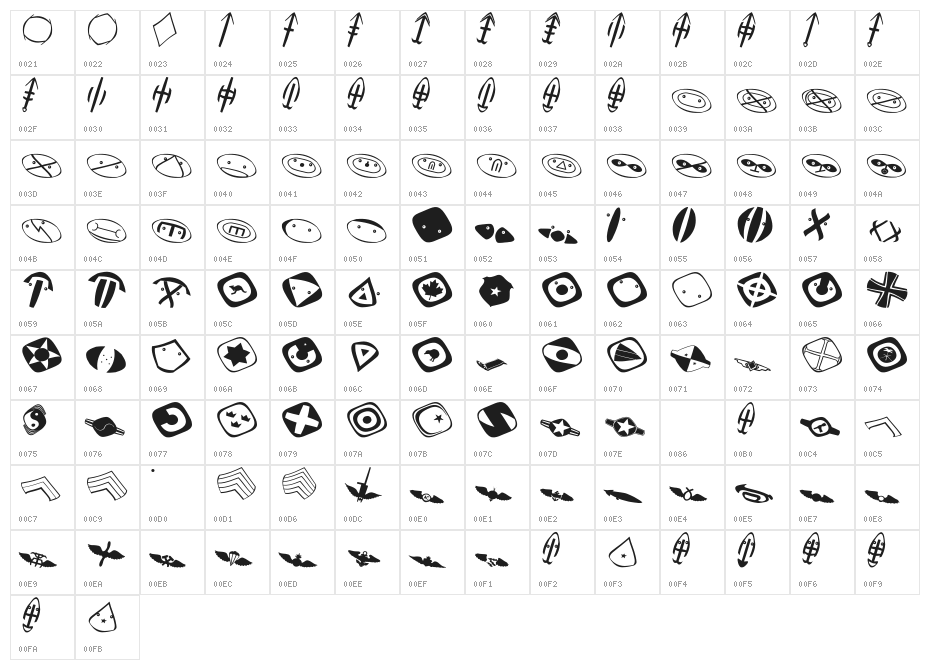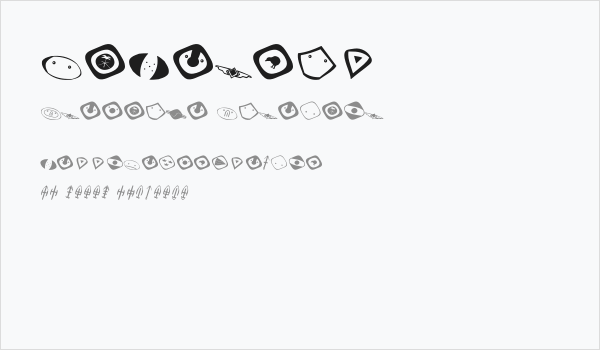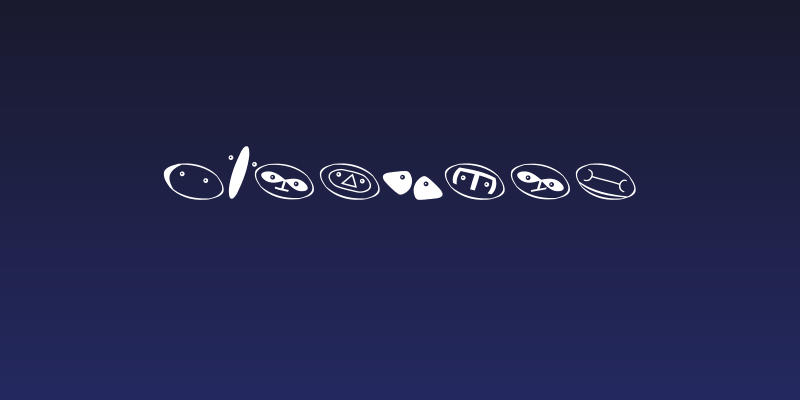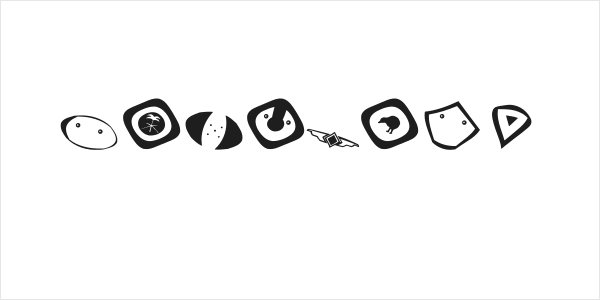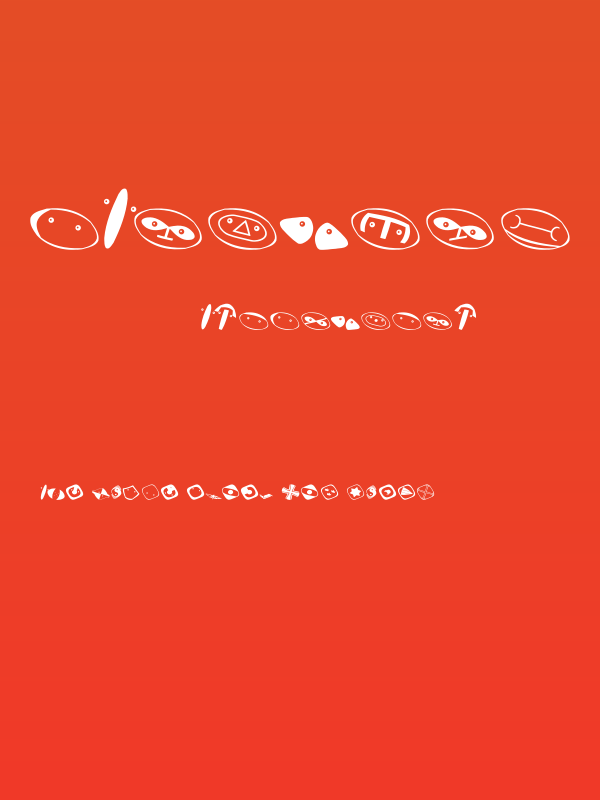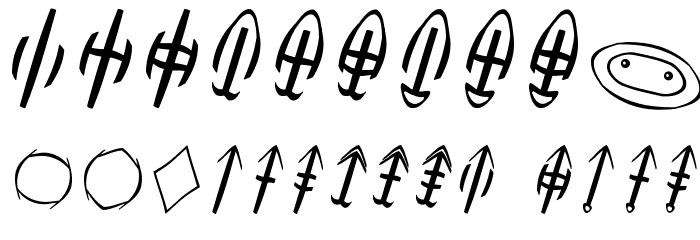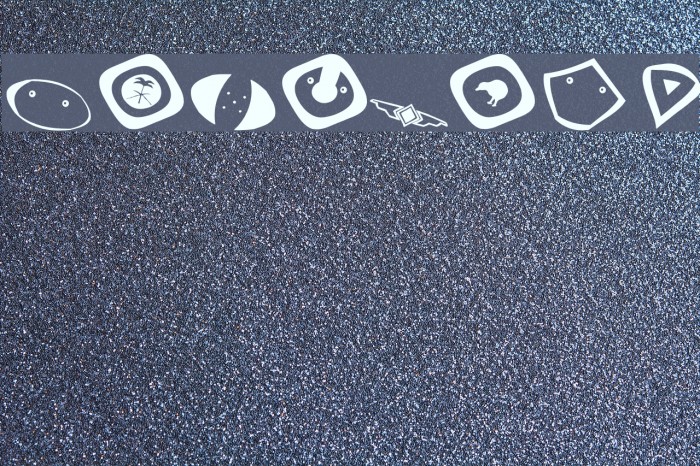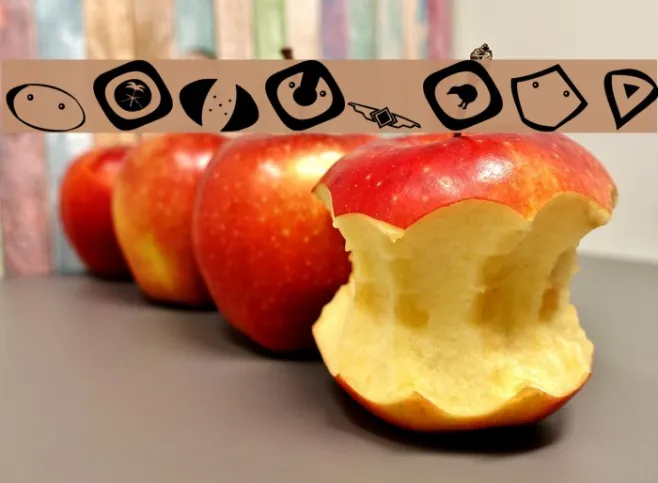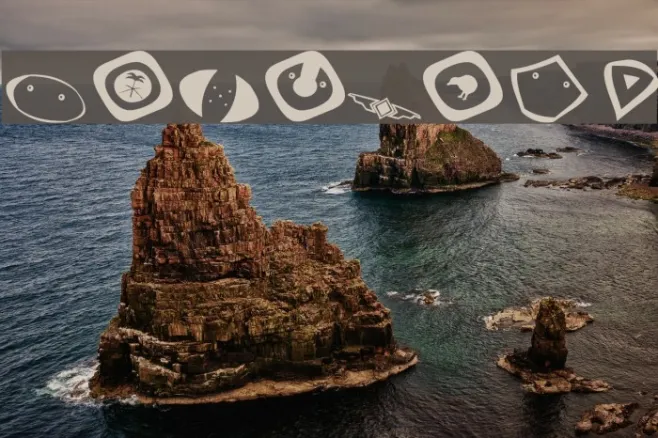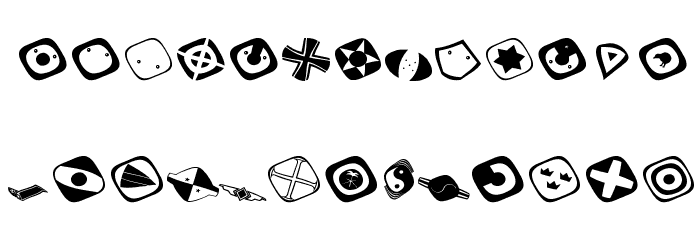
Othermil Font
Othermil Description
This collection of symbols and shapes does not represent a traditional font with recognizable alphanumeric characters. Instead, it features a variety of abstract and geometric designs, each enclosed within different shapes like circles, squares, and polygons. The designs include a mix of simple dots, lines, and more complex patterns, some resembling familiar symbols or icons. The overall style is highly decorative and artistic, with a playful and experimental feel. These symbols could be used for creative projects that require unique visual elements rather than standard text.
| Use Case | Logos, Decorative elements |
| Proposed Projects | Ideal for artistic designs, logo creation, or as decorative elements in digital art projects. |